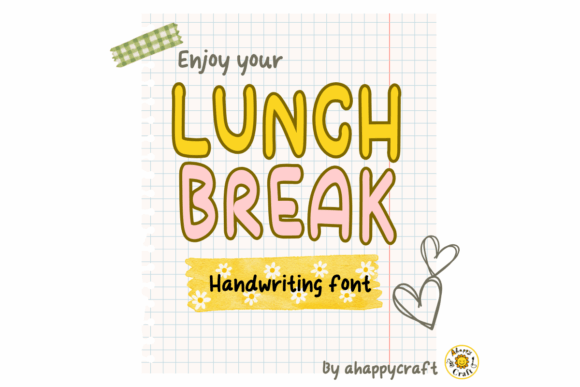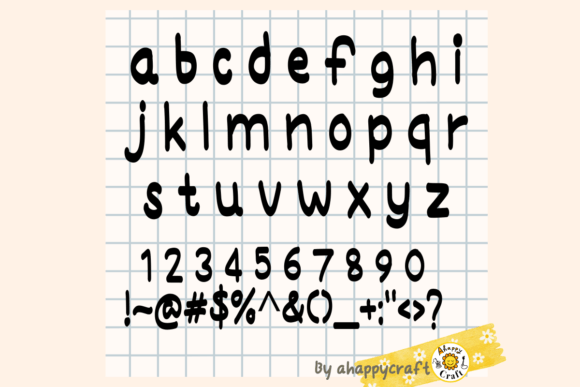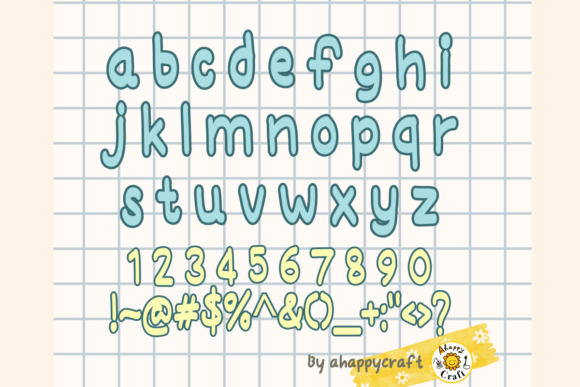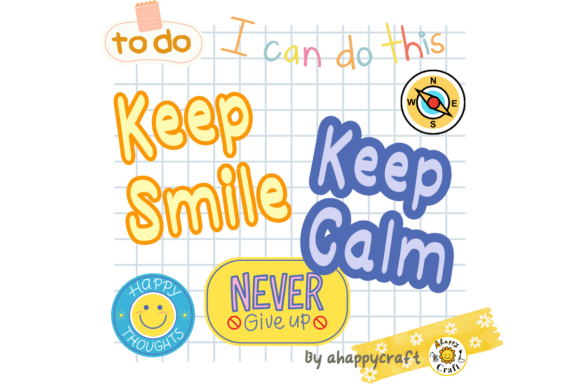
Lunch Break Font: A Cute Handwritten Font for Cricut & Crafts!
About the Lunch Break Font
Crafted with precision, the Lunch Break Font is ready to bring your ideas to life. Lunch break is very cute hand written font. Good to make display font too.
Its playful, slightly quirky nature makes it ideal for headlines, short taglines, branding for children’s products, or packaging designs that need a friendly touch. It also works well in social media graphics and short marketing materials where approachability is key. Avoid using it for body text or long paragraphs; its informal style lacks the readability needed for extensive text.
Lunch Break Font pairs well with clean sans-serif fonts like Open Sans for a balanced contrast or a more geometric sans-serif for a modern feel. Consider pairing it with a classic serif like Garamond for a touch of sophistication or a script font like Allura for added elegance, depending on the desired overall effect.
The font’s core personality is undeniably cheerful and approachable, conveying a sense of lightheartedness and fun. It’s not suitable for projects requiring seriousness or professionalism; its charm lies in its informal, hand-written aesthetic.